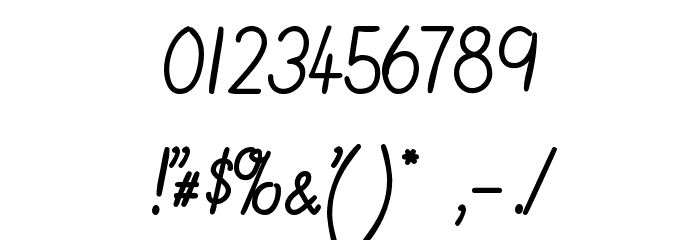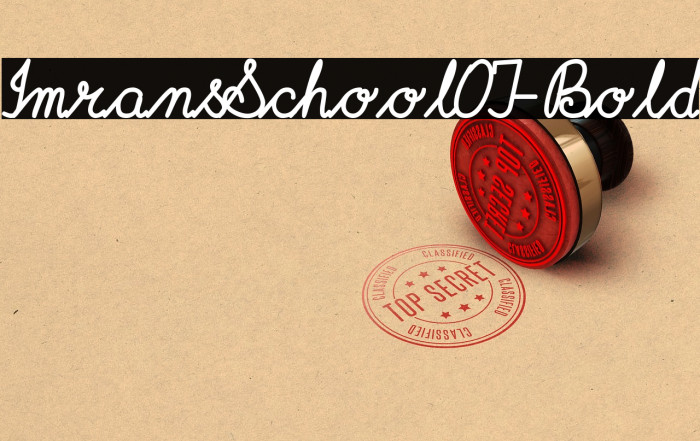
ImransSchoolOT-Bold Font
ImransSchoolOT-Bold Description
This font features a flowing, cursive style with elegant, connected letters that mimic natural handwriting. The uppercase letters are bold and slightly slanted, giving a sense of movement and fluidity. The lowercase letters maintain a consistent style, with smooth curves and loops that enhance readability. Numbers and special characters are designed to match the overall aesthetic, ensuring a cohesive look across different text elements. The font's design is both sophisticated and approachable, making it suitable for a variety of creative applications.